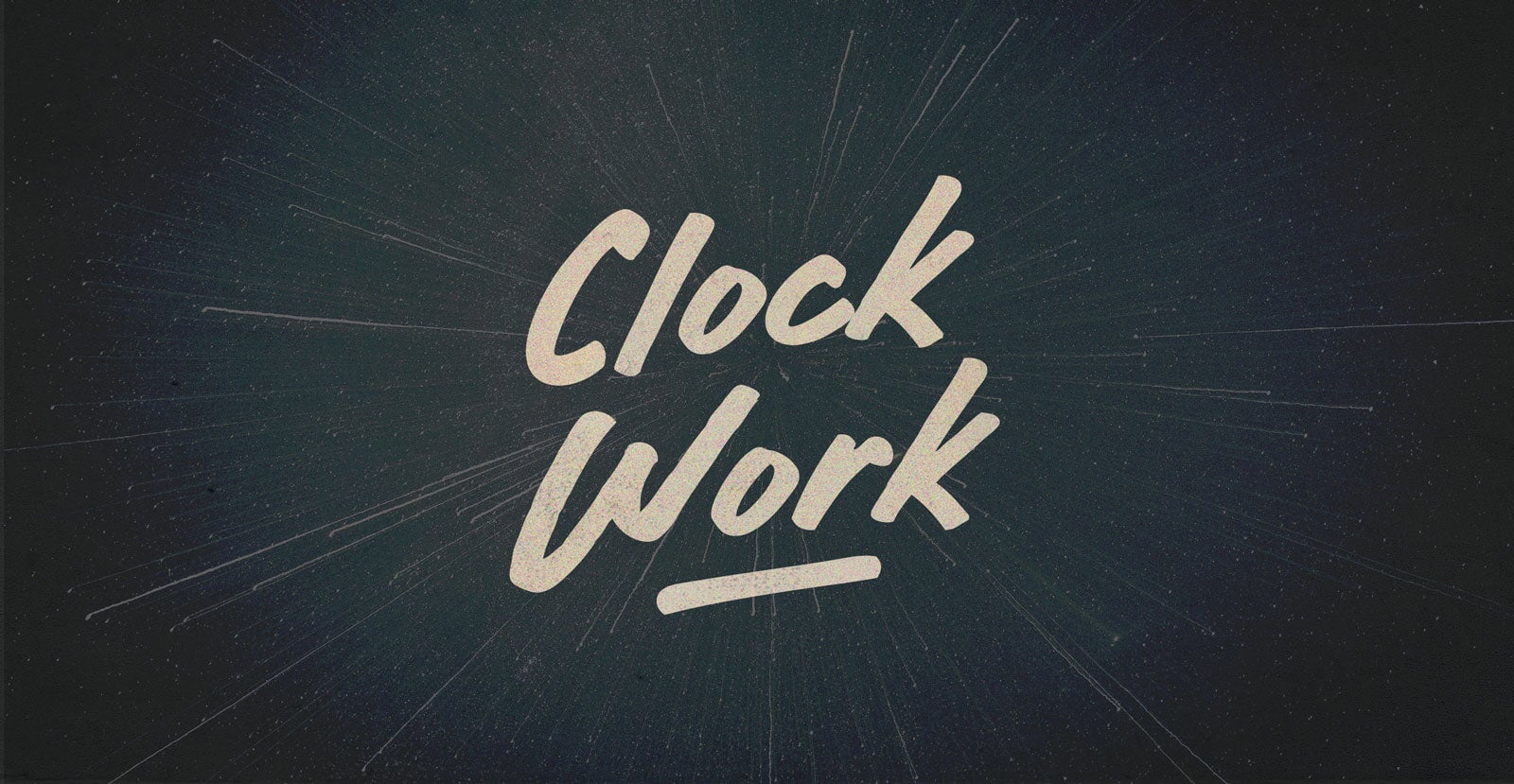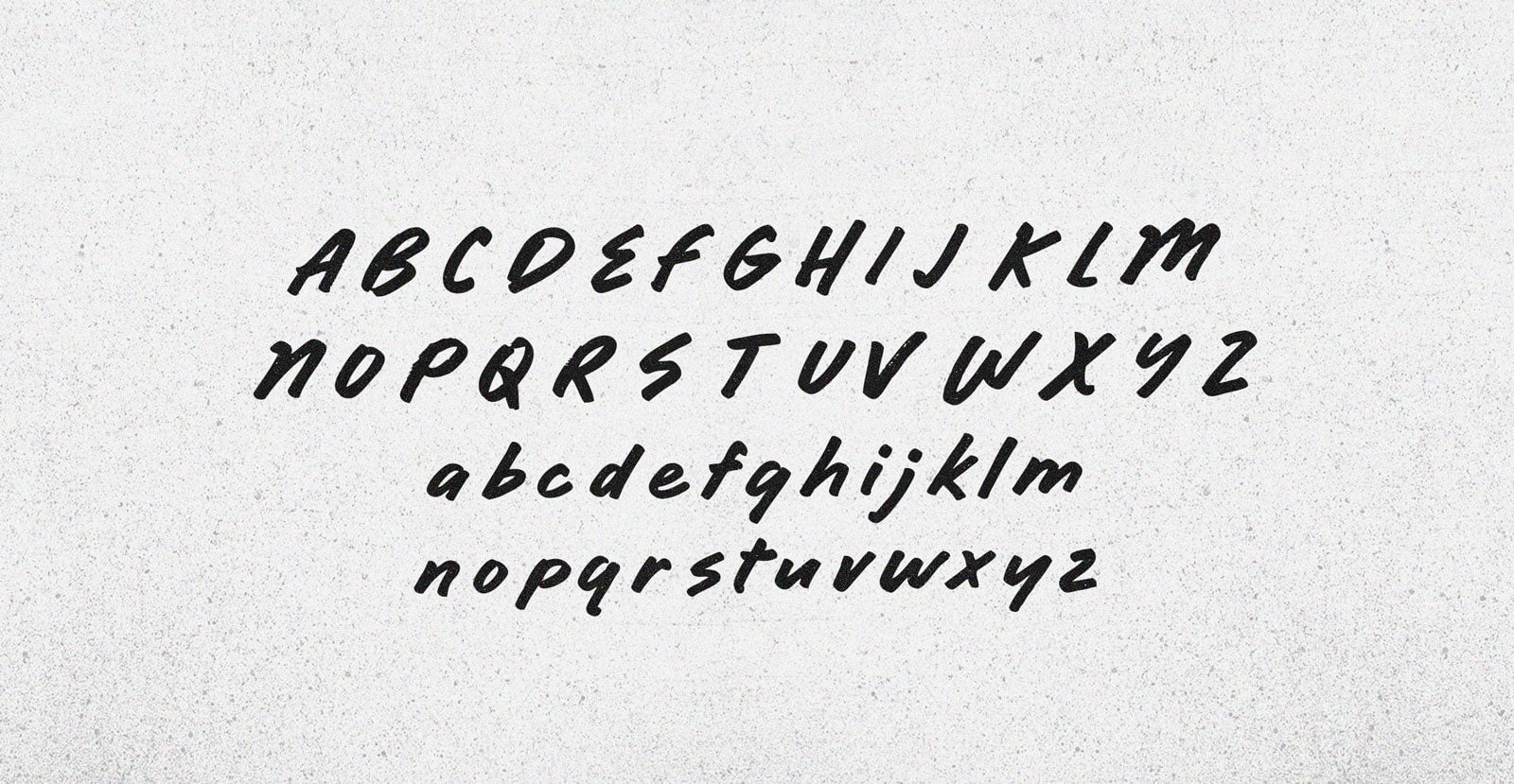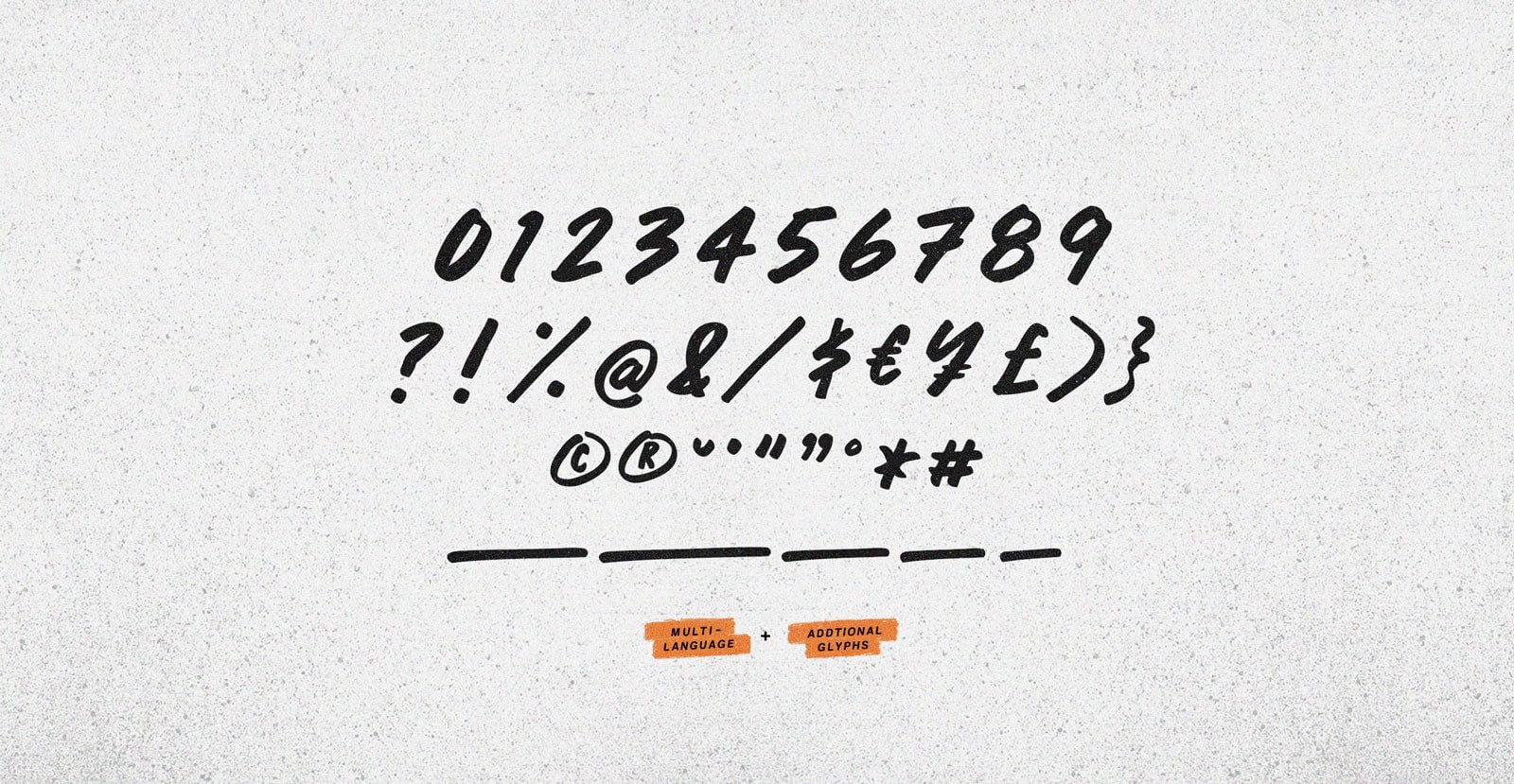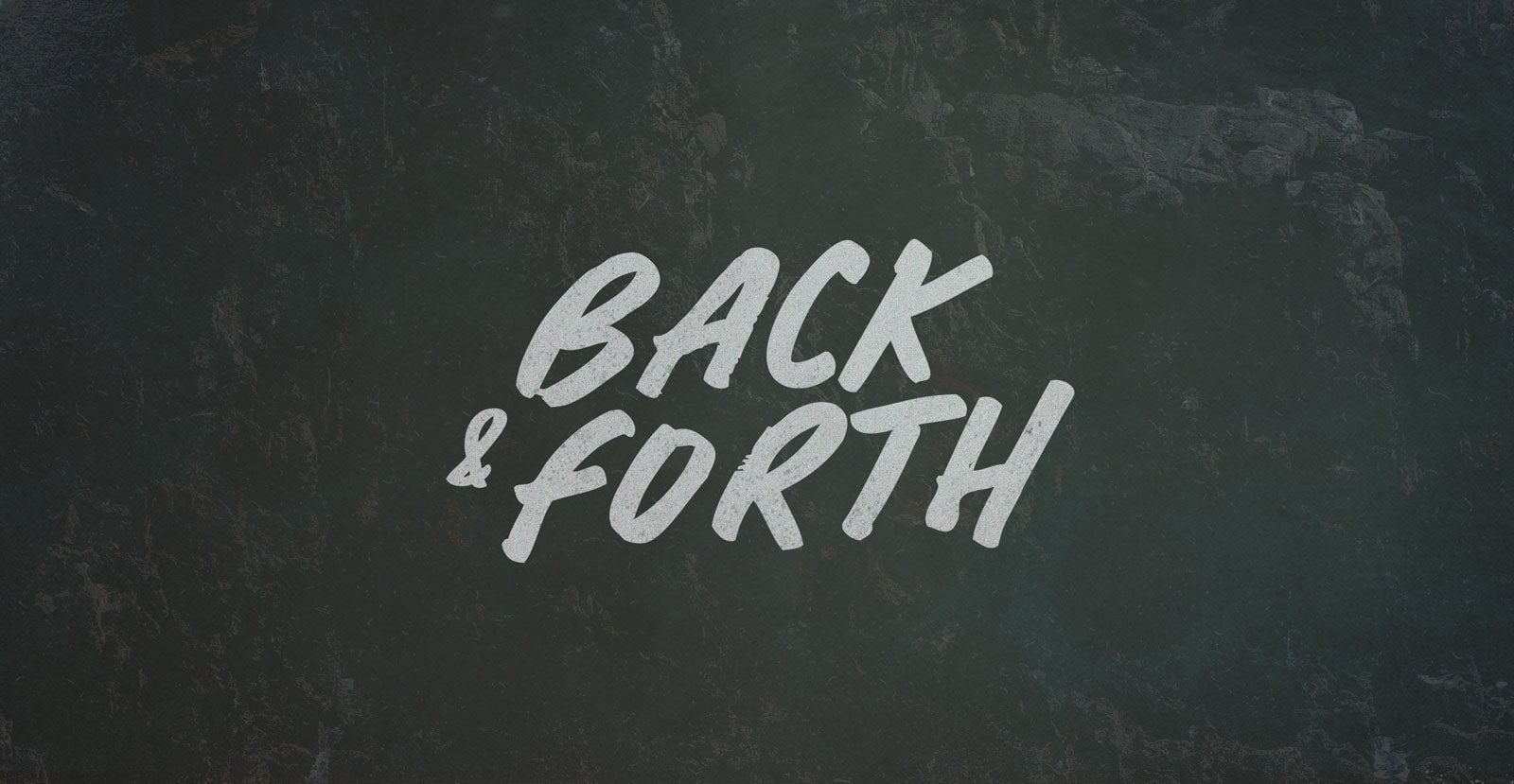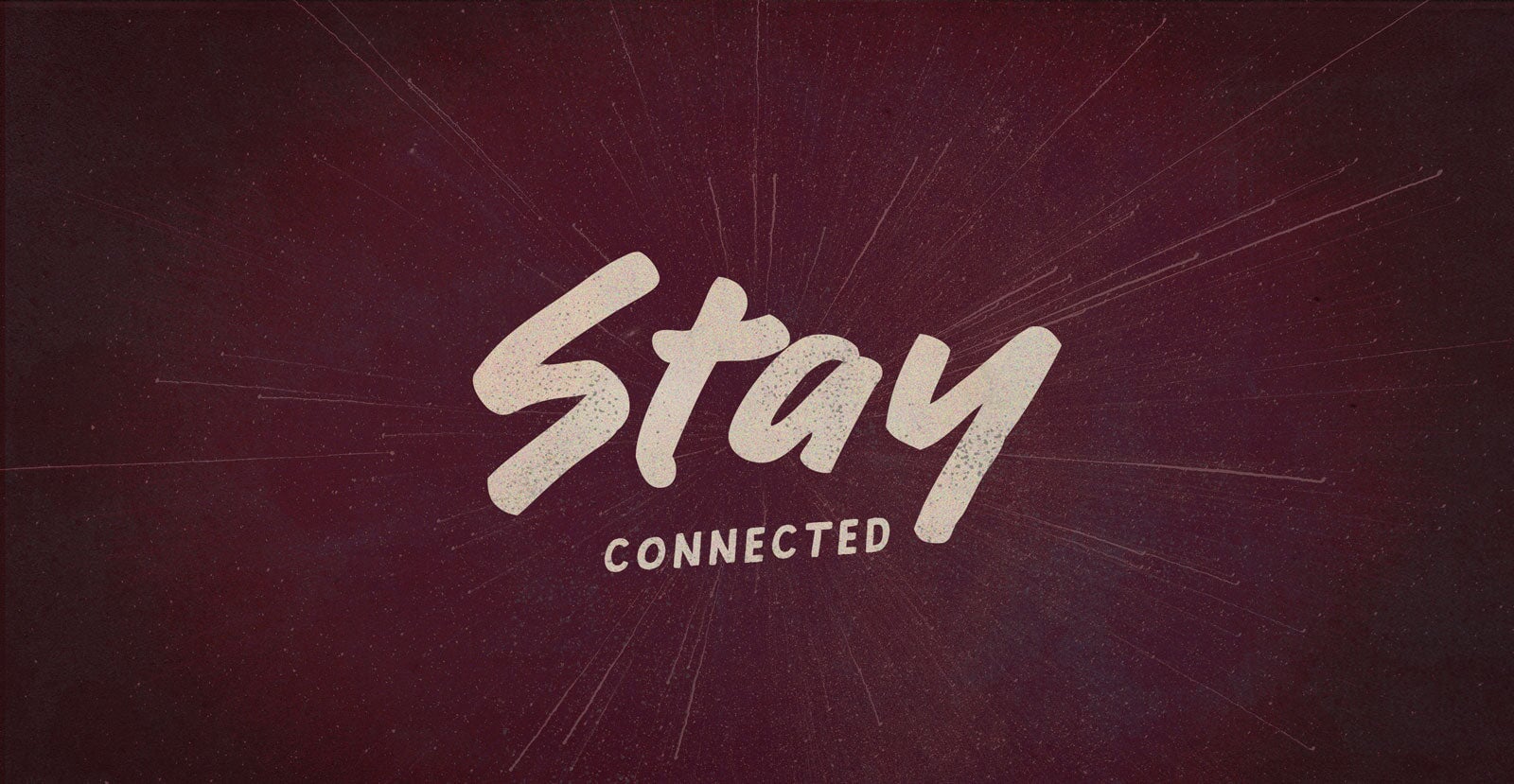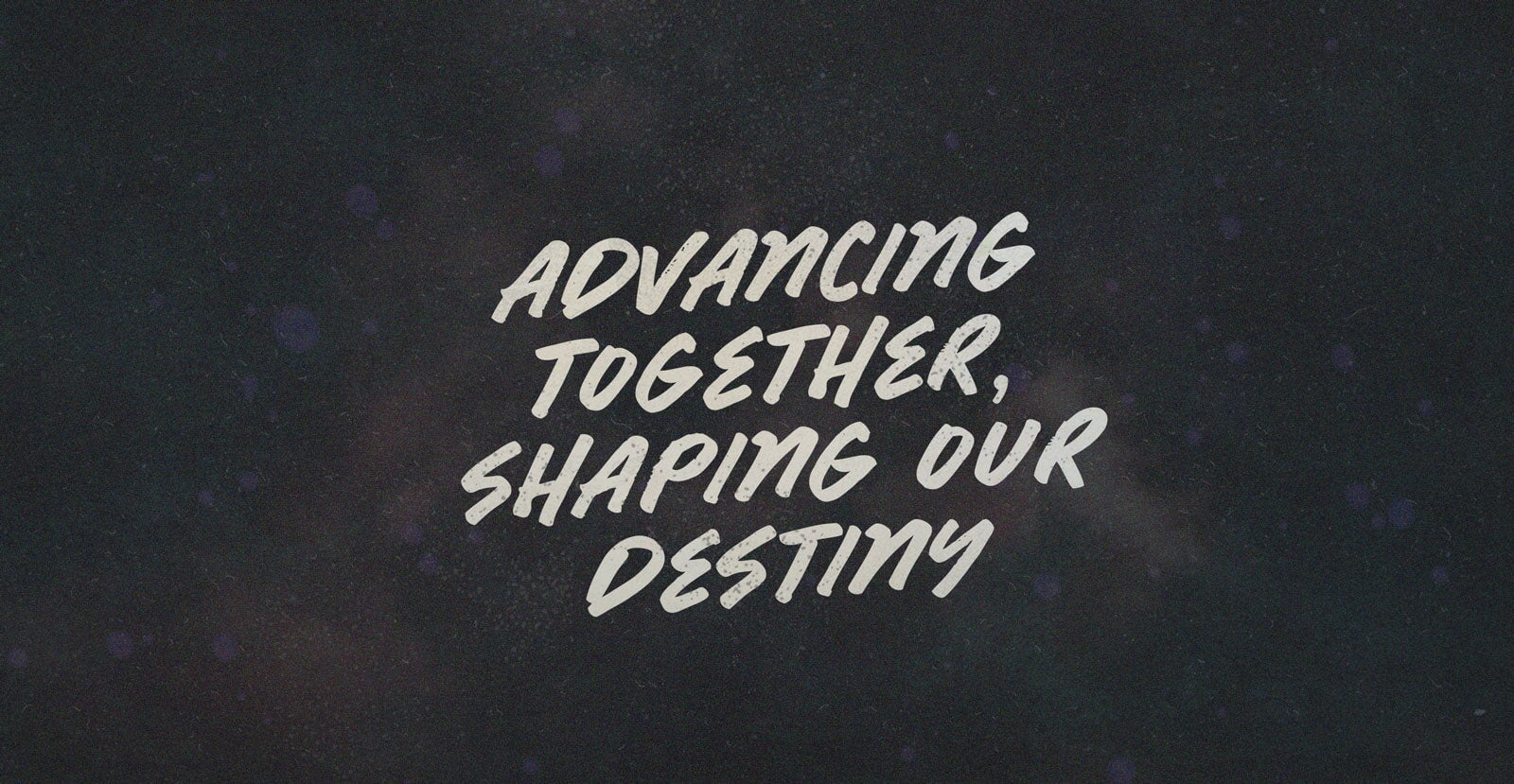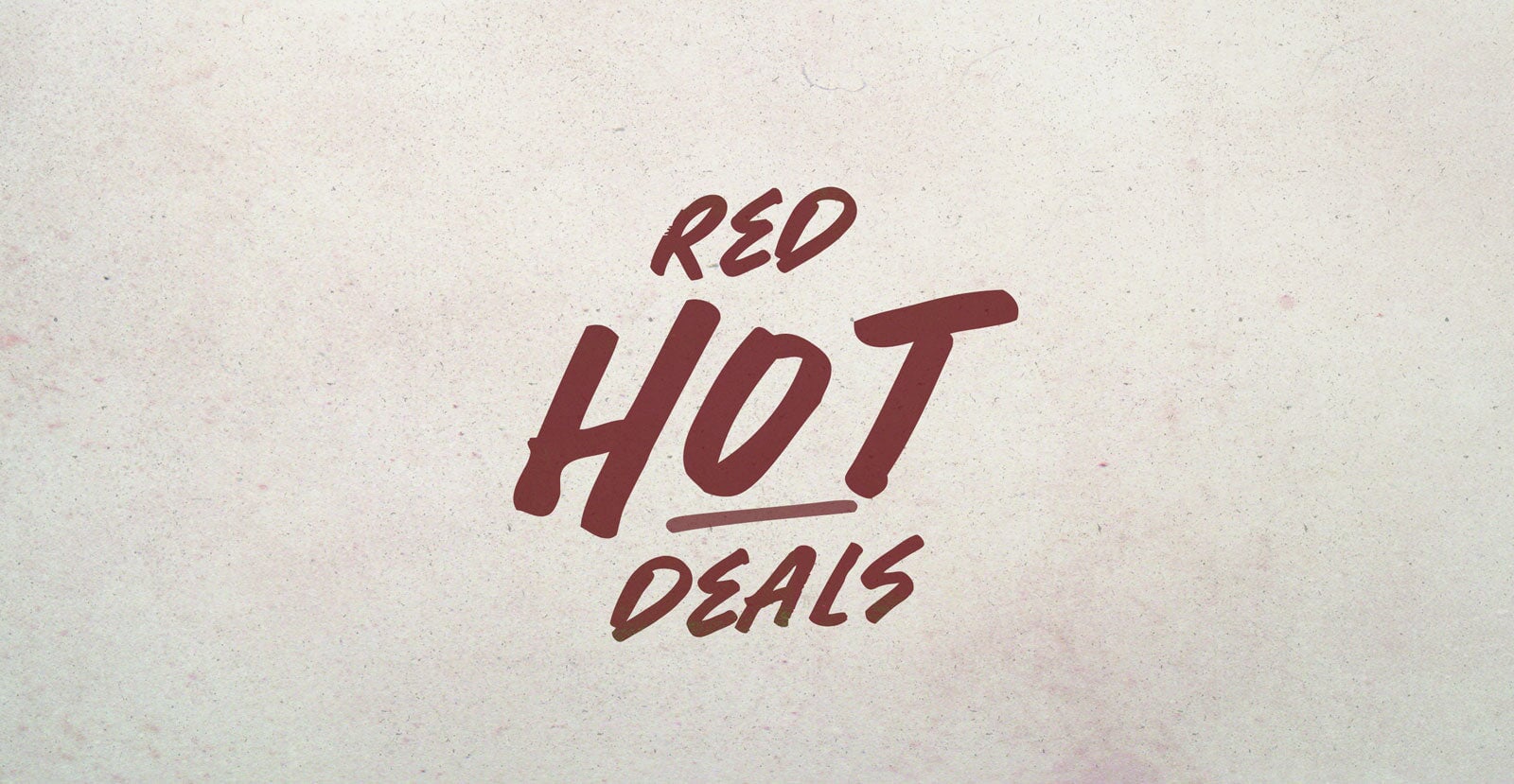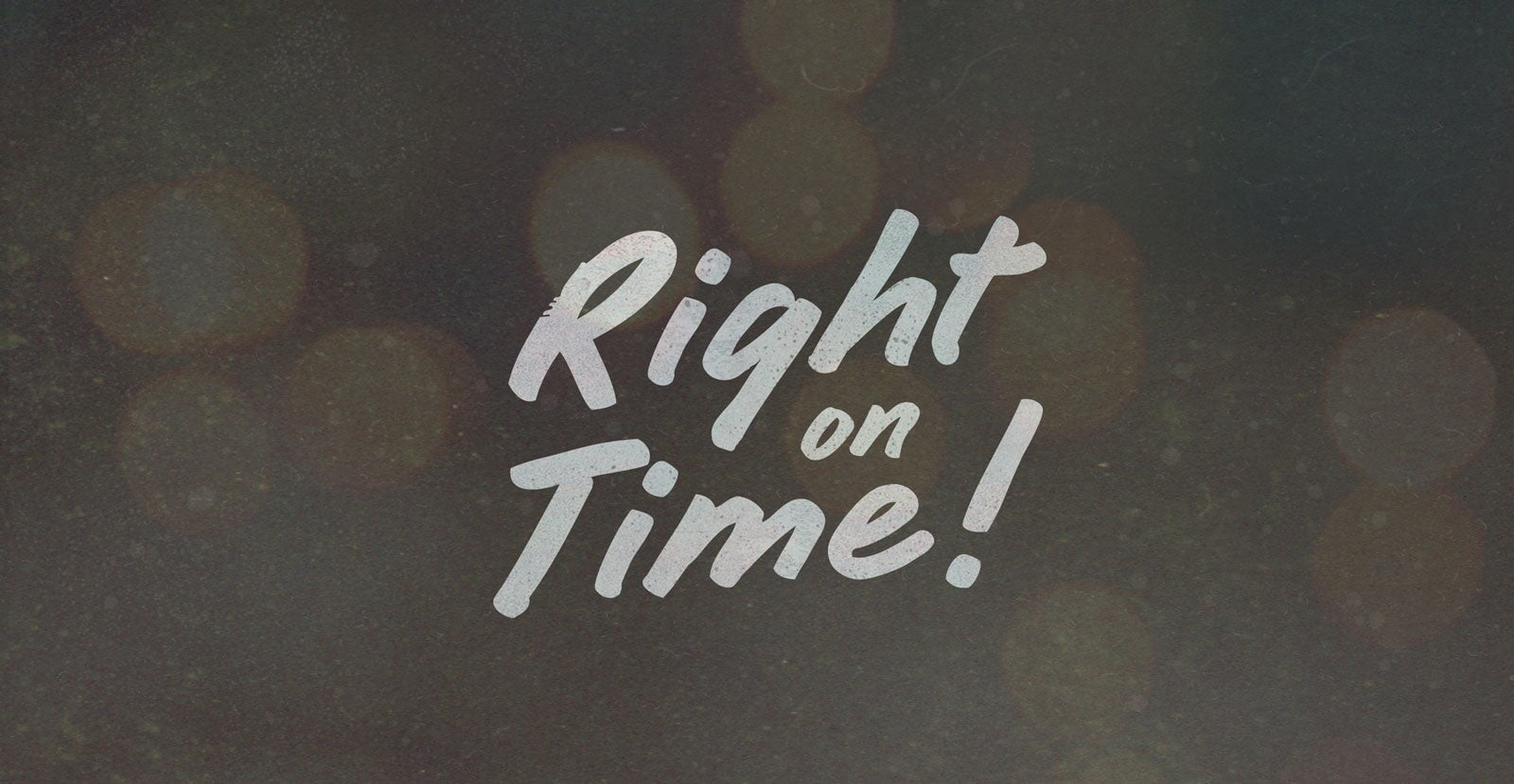
Clock Work
The tick-tock of doppler death closes in—deepest at a distance. How can a Clock Work the head like chronic pain clocks the body? Time it. Crumpled clockwork flesh, blood, and brain matter ‘cause the ref betwixt Rock ’em Sock ’ems never cared for nobody after the bell.